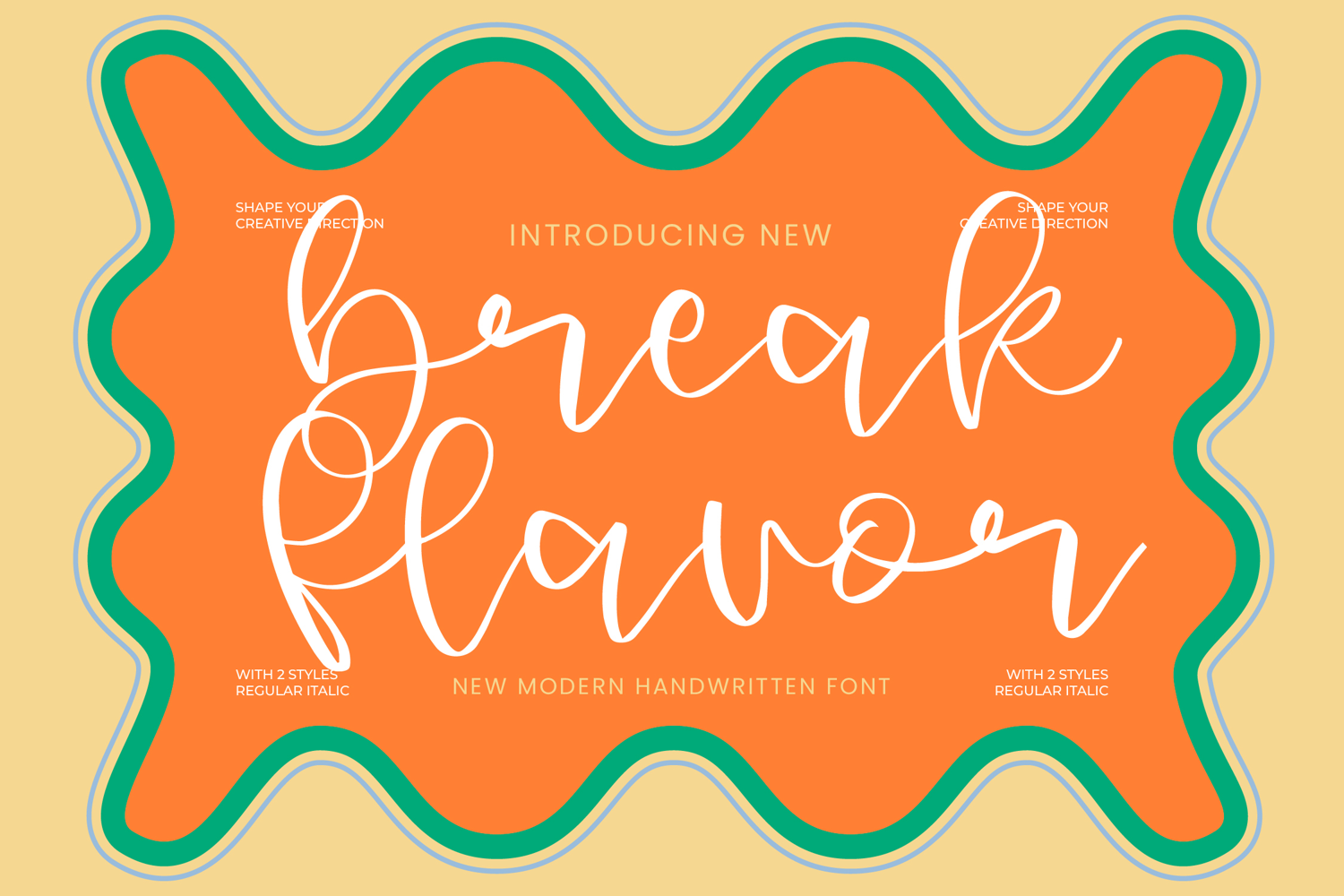
Break Flavor
Discover Break Flavor, a vibrant new handwritten script font with wavy, playful strokes and trendy style—perfect for bold, eye-catching designs. Features fluid uppercase/lowercase, numbers, symbols, ligatures, and stylish alternates—PUA encoded for Photoshop, Illustrator use. TTF/OTF formats ready to elevate your projects.
Perfect For:
• Trendy logos & branding
• Foodie packaging & menus
• Social media graphics & quotes
• Modern posters & apparel